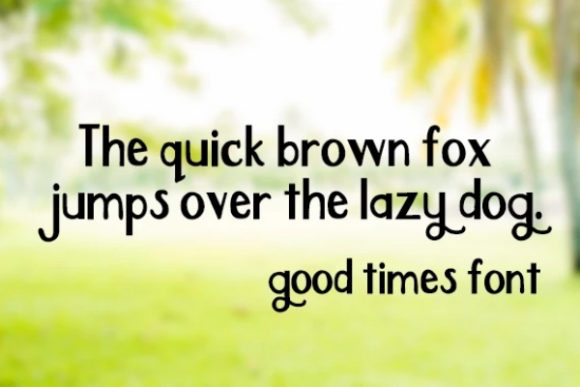
Introducing Good Times Font: Elevate Your Designs with Elegance and Versatility
In the world of typography, fonts play a crucial role in conveying messages, expressing emotions, and creating visual identities. For designers and crafters seeking a unique and sophisticated look, Good Times Font is an exceptional choice. This distinct, elegant display font seamlessly blends traditional influences with a contemporary aesthetic, making it perfect for a wide range of design projects.
The Characteristics of Good Times Font
Good Times Font boasts well-balanced Latin details with distinctive contrasts, which set it apart from other fonts. Its elegant design features a perfect blend of classic and modern elements, making it an excellent choice for designers who want to add a touch of sophistication to their work. The font’s subtle yet refined appearance ensures that it can be used in various contexts, from luxury branding to high-end packaging, without overpowering the content.
Achieve an Exquisite Look with Good Times Font
Good Times Font is designed to provide maximum versatility, allowing designers to experiment with different styles and applications. Whether you’re working on a logo, headline, or title, this font is sure to make a lasting impression. Its exquisite design and subtle elegance ensure that it can be paired with a wide range of fonts and design elements, making it easy to create visually appealing compositions.
Why Choose Good Times Font?
So, what makes Good Times Font an attractive choice for designers and crafters? Here are a few reasons:
- Unique and distinctive design: Good Times Font features a one-of-a-kind design that will help your work stand out from the crowd.
- Elegant and sophisticated: The font’s elegant appearance makes it perfect for high-end designs, luxury branding, and sophisticated projects.
- Versatile: Good Times Font can be used in a variety of contexts, from display headlines to packaging design.
- Easy to pair: The font’s subtle design makes it easy to pair with other fonts and design elements.
How to Use Good Times Font in Your Designs
Good Times Font is an incredibly versatile font that can be used in a wide range of design projects. Here are a few ideas to get you started:
- Logo design: Use Good Times Font to create a sophisticated and elegant logo that reflects your brand’s values and personality.
- Headlines and titles: Add a touch of elegance to your headlines and titles with Good Times Font.
- Packaging design: Use Good Times Font to create luxurious and eye-catching packaging designs.
- Branding and advertising: Good Times Font is perfect for creating high-end branding and advertising materials.
Tips and Tricks for Working with Good Times Font
To get the most out of Good Times Font, here are a few tips and tricks to keep in mind:
- Experiment with different sizes: Good Times Font looks great in a variety of sizes, from large display headlines to smaller body text.
- Play with color: The font’s elegant design makes it perfect for use with a range of colors and textures.
- Pair with complementary fonts: Good Times Font pairs well with a range of fonts, so don’t be afraid to experiment and find the perfect combination.
Good Times Font is an exceptional choice for designers and crafters seeking a unique and sophisticated font for their projects. Its elegant design, versatility, and distinctive contrasts make it perfect for a wide range of applications. Whether you’re working on a luxury brand, high-end packaging, or simply want to add a touch of elegance to your designs, Good Times Font is sure to impress.